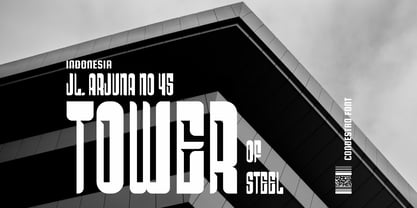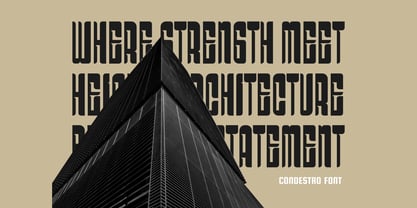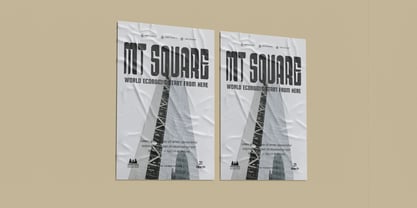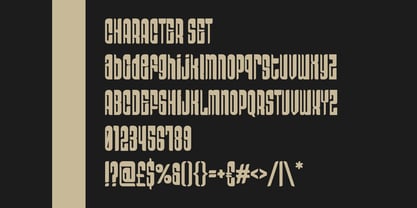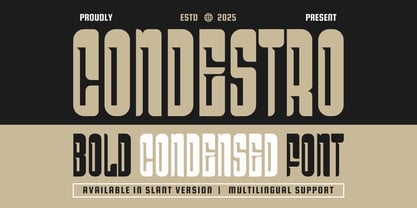
Condestro
by Shanaf
The Condestro Font Family was designed by Yesie Erma Yunita and published by Shanaf. Condestro contains 2 styles and family package options. More about this family
Condestro Bold Condensed Font brings a striking presence to your design with its bold, tightly compressed letterforms and geometric cuts. This display font is engineered with sharp, symmetrical angles and unique notches that give each character a distinctive personality. The vertical emphasis and narrow spacing deliver a powerful look while maximizing space, making it perfect for posters, packaging, or editorial layouts where attention is key. Its strong architectural feel makes it especially suitable for modern, urban, or industrial-themed projects. Condestro also comes with a slanted version, offering flexibility for dynamic layouts and typographic contrast.
From branding and logos to magazine titles and movie posters, Condestro carries authority and style. It works beautifully on large headers and bold compositions, where readability and visual impact must coexist. The multilingual support extends its usability across global projects. With uppercase, lowercase, numerals, and a full range of punctuation and symbols, it’s built to support a variety of visual identities—from commercial promotions to creative ventures.
Designers: Yesie Erma Yunita
Foundry: Shanaf